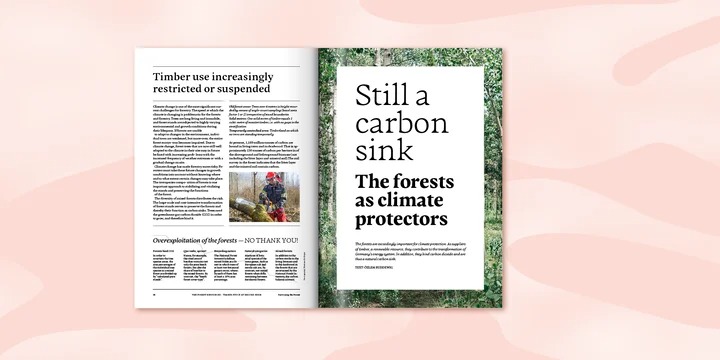
Adelbrook Font Family
Adelbrook Serif Font
This is a serif typeface family that is characterized by strong contrasts. It enriches text with the archaic structure of humanist type, because its characters arrange in a harmonious rhythm with a dynamic stroke, asymmetric serifs and stems that lean in the direction of reading. These characters have gravity and are firmly on the baseline. The tapered stems define a heaviness that end in emphasized foot serifs. Actually all the details are heftier the lower they are. This is particularly evident in a subtle vertical hairline variation, light or unapplied head serifs, and clipped upper dots.